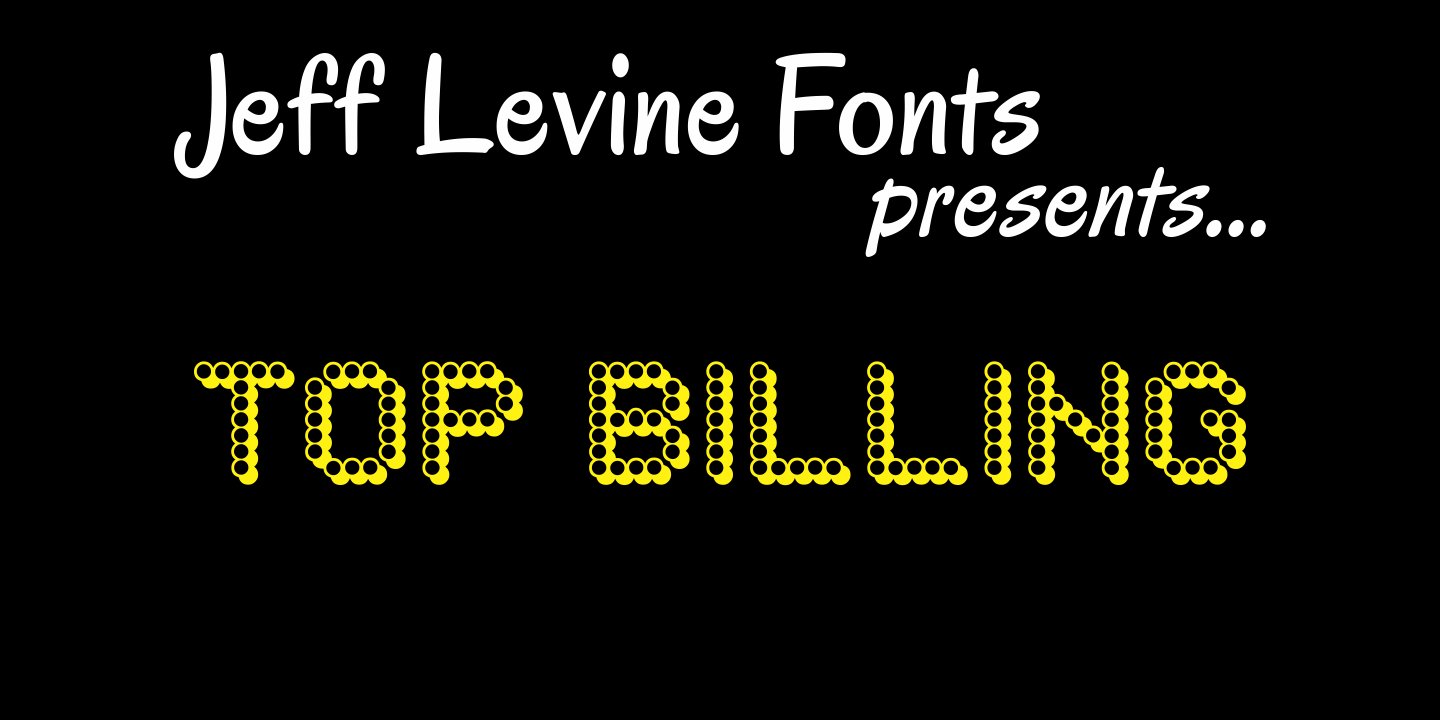
Top Billing
Sometimes the simplest ideas yield more than one result. The basic "dot matrix" design of aligned circles that was the basis for Transactive JNL also yielded Zera JNL (connected rings) and Pillow Puff JNL (fluffy and cloud-like lettering). One more design was originally cast aside.
For the fun of it, Ray Larabie of Typodermic Fonts ran Jeff Levine's Transactive JNL through an effects filter to see the end results. The drop shadow behind the open circles gave the font the look of bulb-lit letters in a classic theatrical sign, and once the file was fine-tuned, it was named Top Billing JNL.
A separate file is available for filling in the letters with a colored background, however minute adjustments may be needed due to the fact that each drawing or design software program has its own characteristics and quirks.